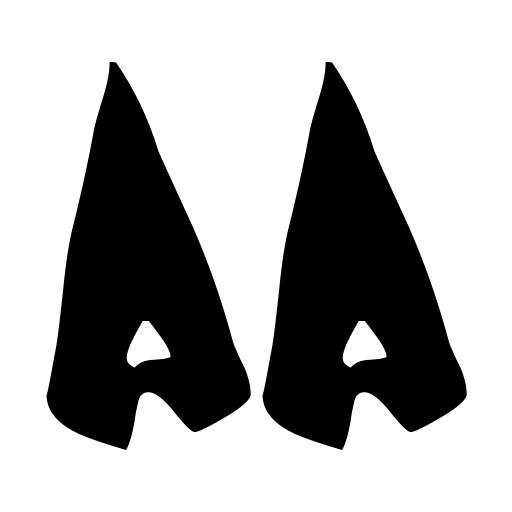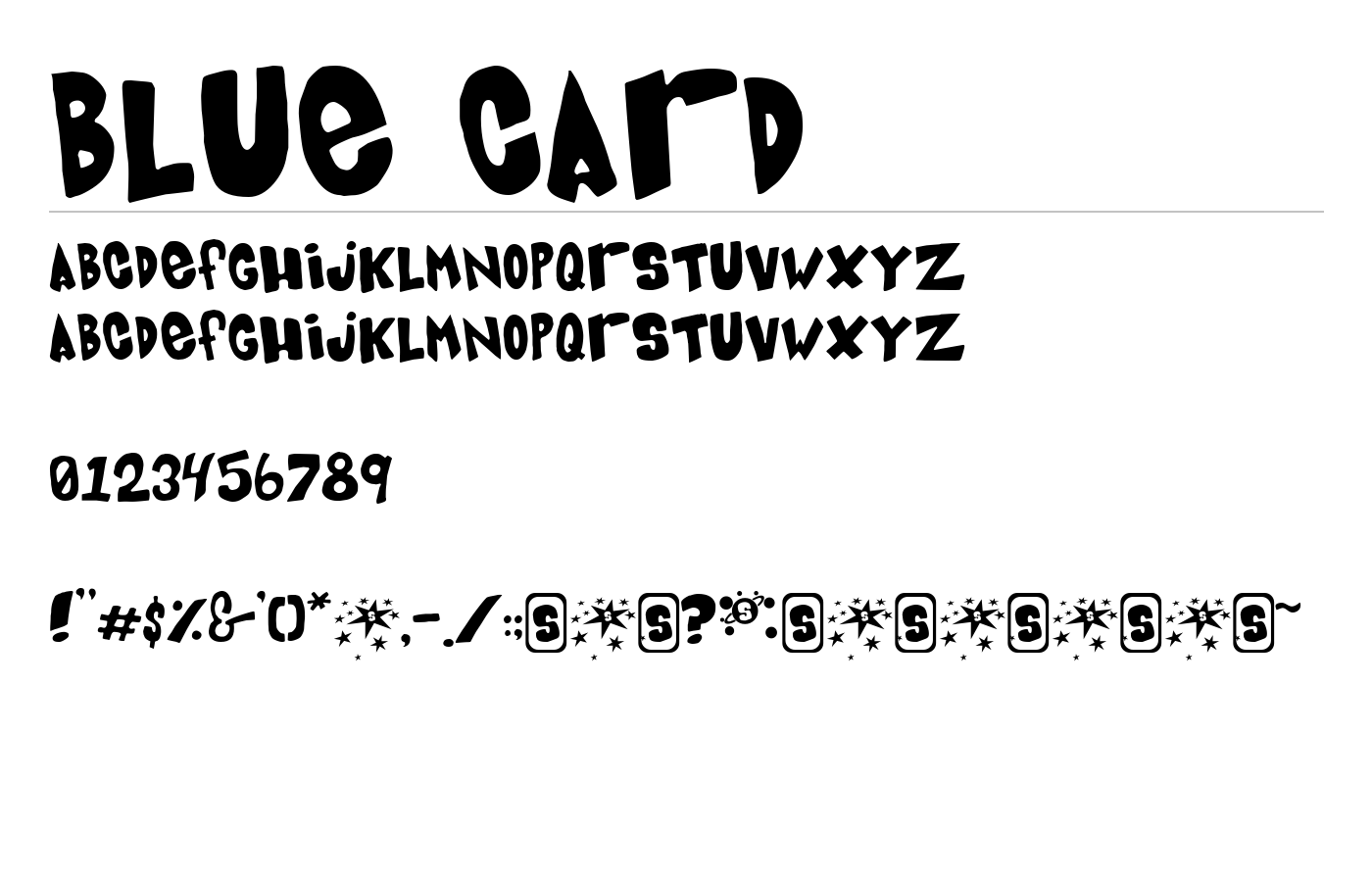
Blue Card is a playful, bold sans serif font with an irregular and hand-crafted look, featuring chunky, slightly condensed letterforms with a quirky, fun personality. Its whimsical shapes and uneven strokes create an informal, energetic vibe that suits creative projects, children's materials, or casual branding. This font works well for headlines, posters, or any design where a lively and distinctive style is desired.
Blue Card Font